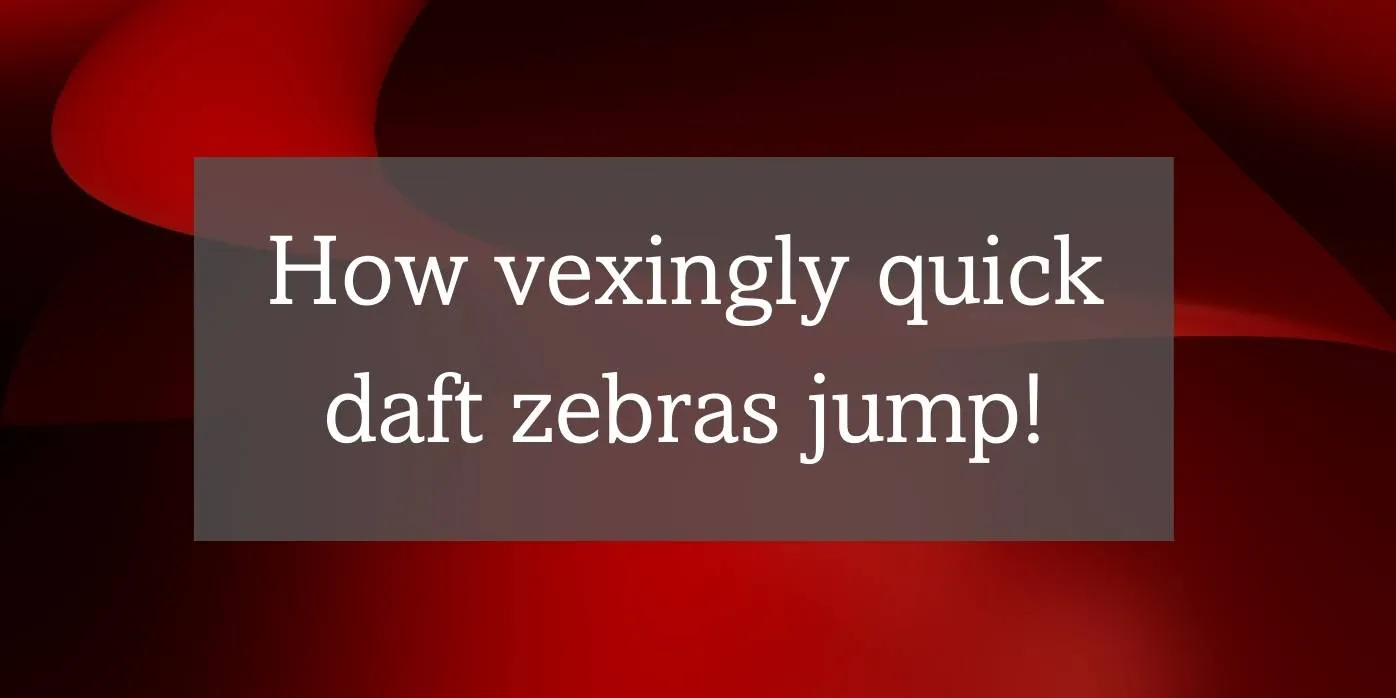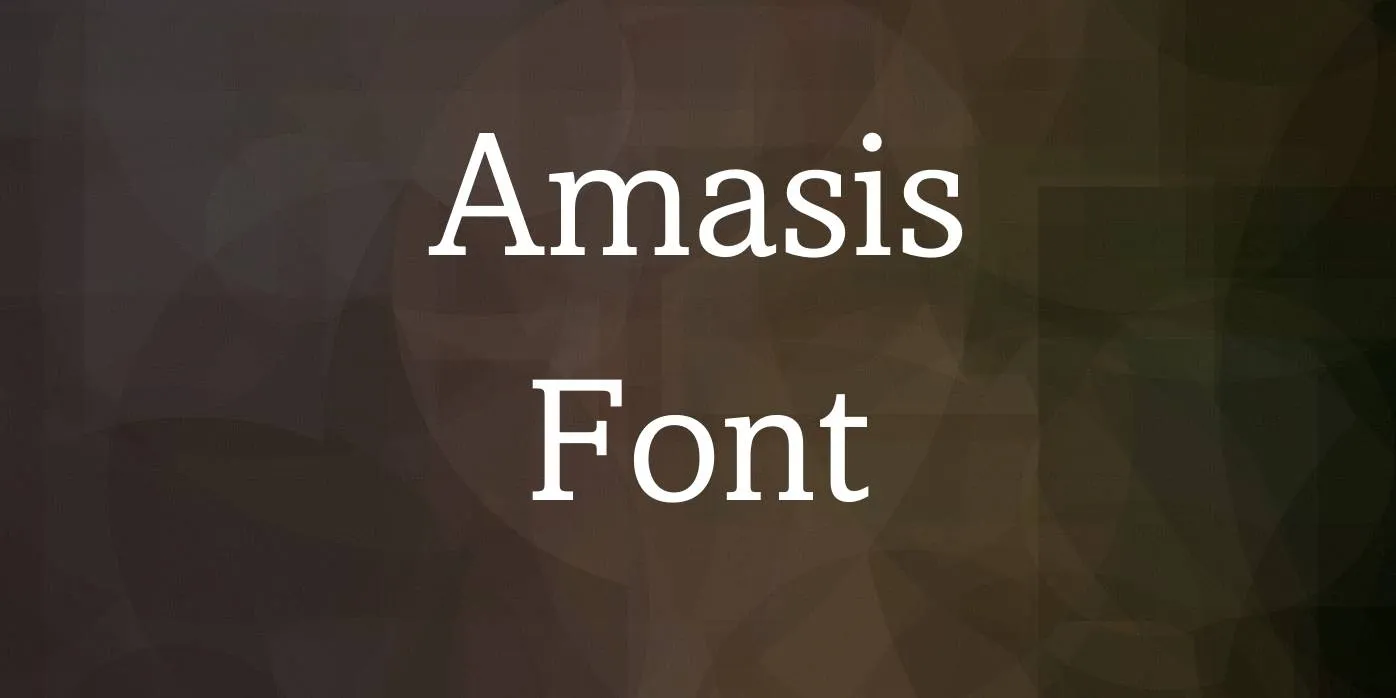
Amasis Font
Amasis Font is a very famous font designed by Ron Carpenter and released through Ascender Corporation. It is a slab serif font intended for display settings and is available in both regular and bold weights. It was designed to be easy to read on screens, making it a good choice for displays and web use. This typeface family includes regular, italic, bold, and bold italic weights, each with a matching true type font.
It is also available as a web font through the Google Fonts library. This typeface is best for Adobe, and Canva. It is a great font for creating attention-grabbing headings and titles, as well as for body text in large sizes. This amazing font family is available in 20 popular styles, and 6 classic weights like Regular, Bold, Italic, Bold Italic, Heavy, and Black.